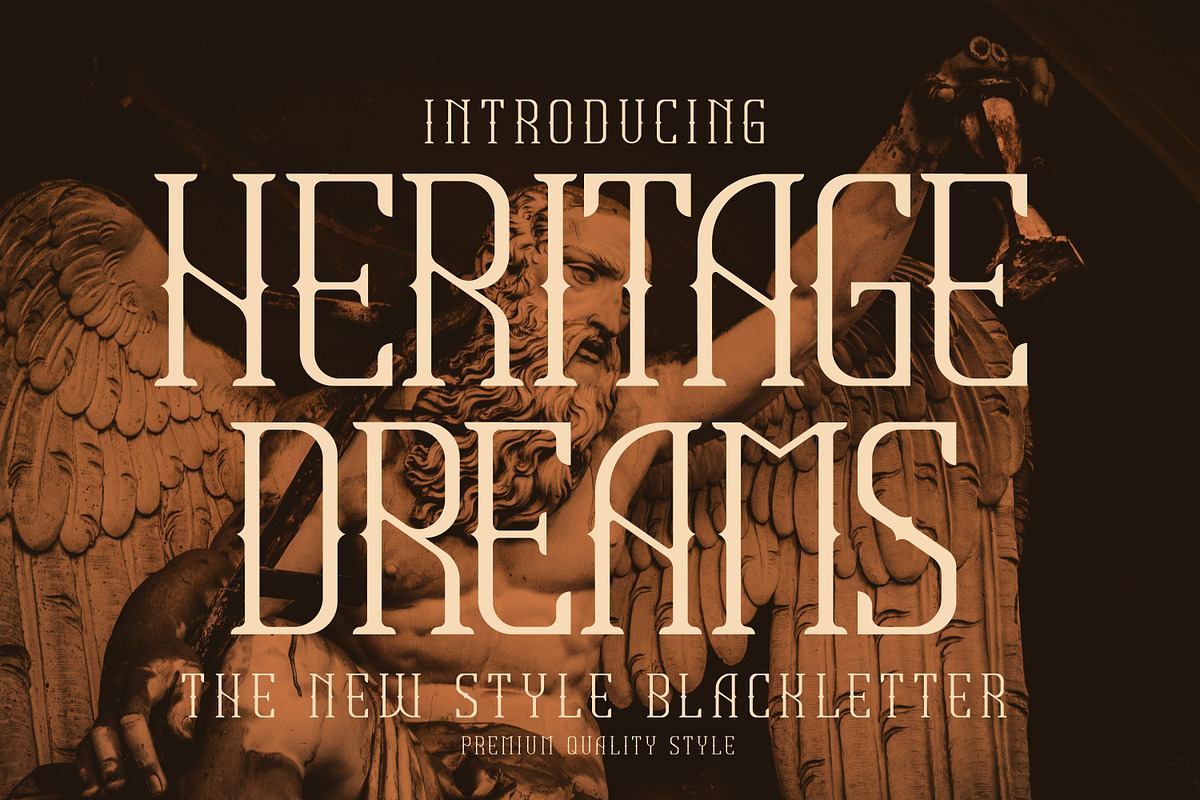
HERITAGE DREAMS Modern Display Font is perfect for cultural institution branding, heritage foundation materials, museum exhibition designs, historical preservation campaigns, ancestral family projects, traditional craft branding, cultural heritage websites, genealogy research graphics, heritage tourism promotions, legacy business identities, commemorative event designs, and distinguished heritage communications.
HERITAGE DREAMS Modern Display Font is exciting because it bridges the gap between cherished ancestral traditions and contemporary design aspirations through its sophisticated letterforms that honor the past while embracing the future, creating typography that celebrates heritage while pursuing modern dreams. This remarkable typeface features elegant character construction with subtle traditional influences that respect historical craftsmanship while maintaining sleek contemporary appeal. The font's heritage-inspired aesthetic creates deep emotional connections with audiences who value cultural legacy, family traditions, and the timeless pursuit of meaningful dreams across generations.
HERITAGE DREAMS Modern Display Font includes comprehensive font families: Regular Heritage Style, Bold Legacy Weight, Light Traditional Touch, Medium Cultural Balance, Italic Flowing Grace, Condensed Classic Format, Extended Ancestral Width, Modern Contemporary Version, Shadow Historical Effects, and Special Heritage Symbols, providing complete solutions for heritage-focused and culturally significant design projects that honor tradition while embracing modern innovation and future aspirations.
This distinguished typography solution transforms ordinary communications into meaningful heritage experiences through its authentic cultural aesthetic and tradition-honoring design language. HERITAGE DREAMS Modern Display Font Free Download enables designers and heritage organizations to access premium cultural typography that instantly adds dignity, historical significance, and contemporary relevance to any creative project. The font's carefully balanced traditional elements ensure authentic heritage character while maintaining modern sophistication and distinctive cultural presence.
Heritage organizations, cultural institutions, and legacy businesses trust HERITAGE DREAMS Modern Display Font for its ability to communicate tradition, cultural significance, and generational continuity to audiences seeking authentic heritage connections and meaningful cultural experiences. The typeface's dignified construction performs beautifully across various applications, from intimate family heritage communications to large-scale cultural institution campaigns. Its extensive character support includes multilingual capabilities and heritage design elements that enhance authentic cultural brand presentations.
The design philosophy behind HERITAGE DREAMS Modern Display Font celebrates the beautiful intersection of ancestral wisdom and future aspirations, creating typography that honors cultural heritage while inspiring contemporary dreams and achievements. This heritage-focused approach creates a font that feels genuinely traditional while maintaining contemporary relevance across different cultural contexts and heritage brand expressions.